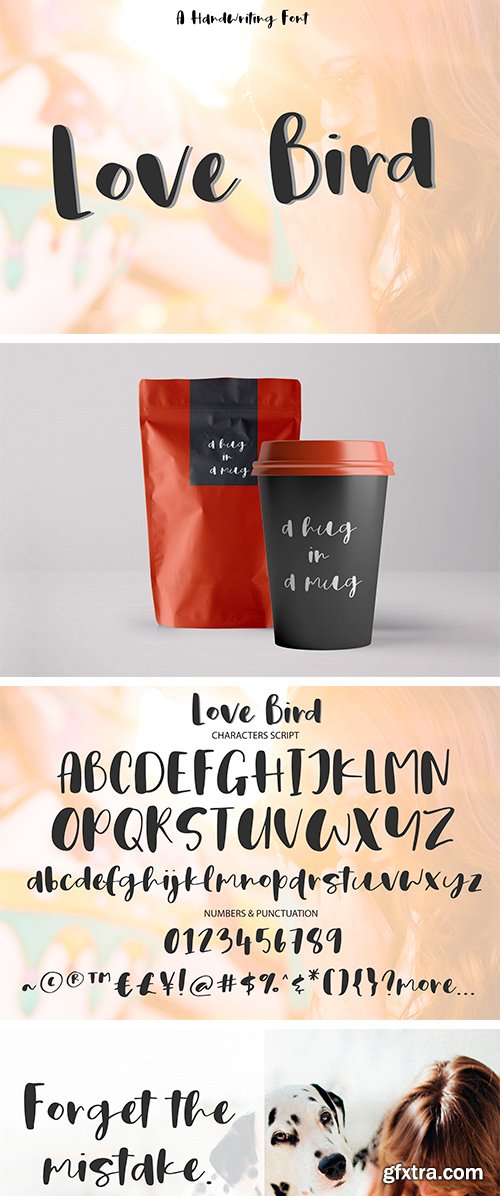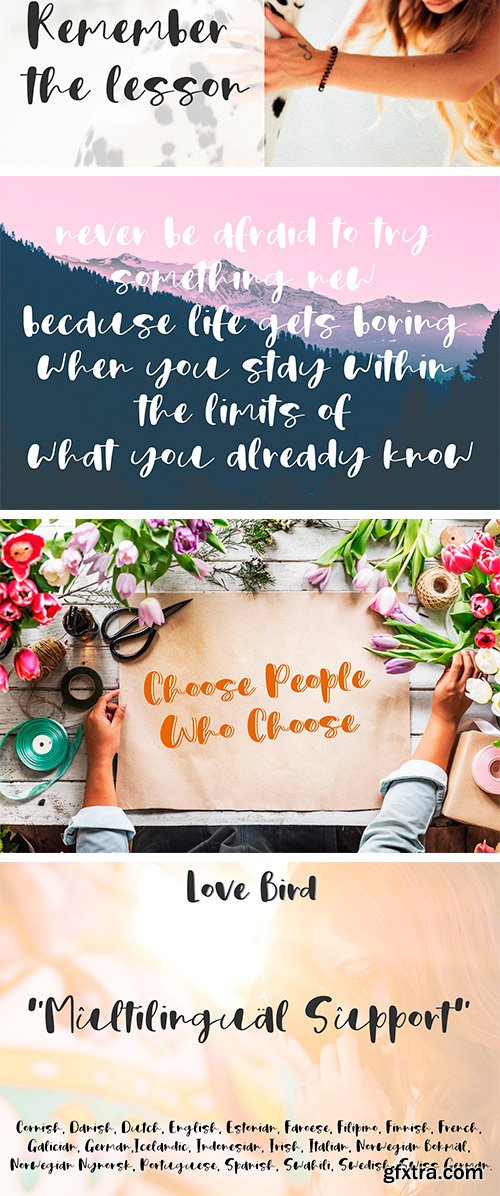
Every single letter has been creative carefully and Perfectly Playful new font pair. This font is a perfect script designed for making your set of invitations, Brand, blog posts, and more completely beautiful.